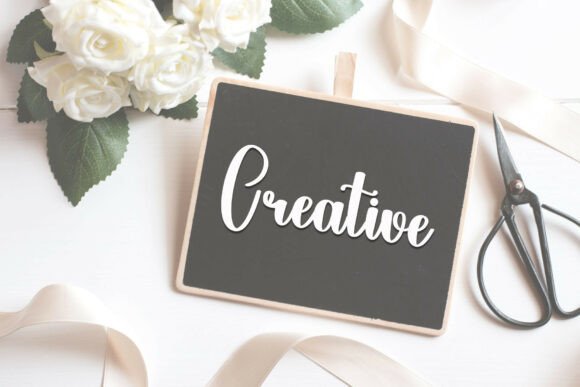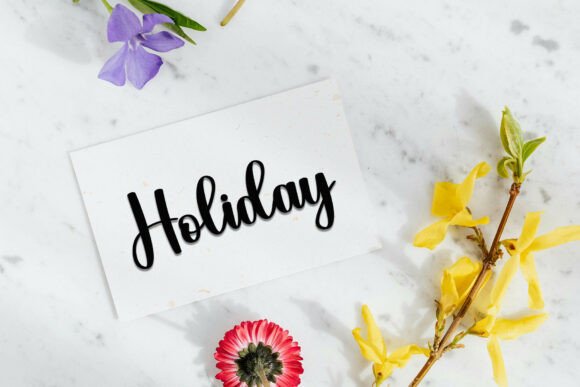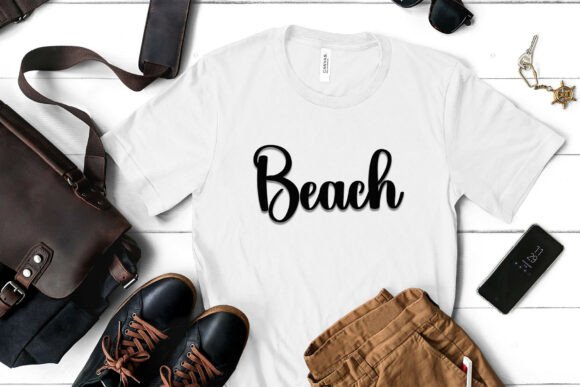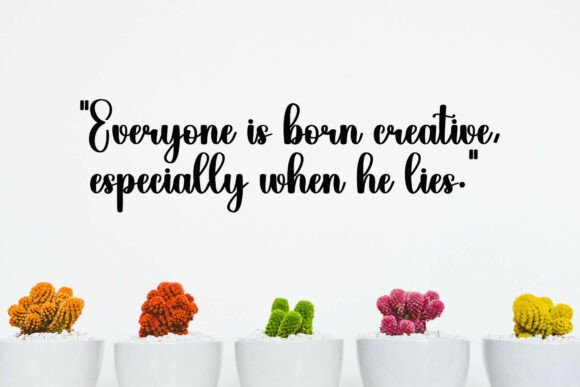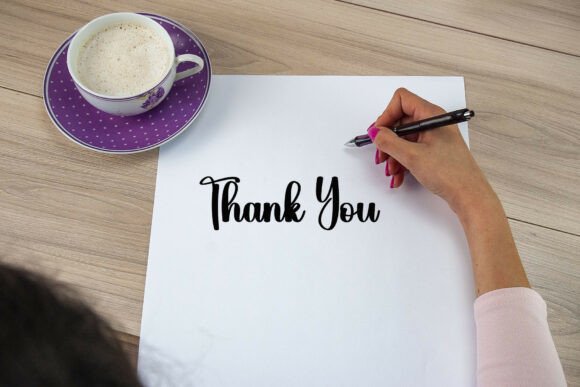
Cowgirls Font: A Sweet and Cursive Handwritten Font for Your Design Needs
Are you a designer or crafter looking for a font that can add a touch of elegance and whimsy to your projects? Look no further than Cowgirls Font, a sweet and cursive handwritten font that is perfect for a variety of design ideas. In this article, we’ll explore the features and benefits of Cowgirls Font, and show you how it can elevate your designs to the next level.
What is Cowgirls Font?
Cowgirls Font is a beautiful, handwritten font that is characterized by its gentle and cursive script. The font is designed to be highly legible and versatile, making it perfect for use in a wide range of design projects. Whether you’re creating a logo, branding materials, wedding invitations, greeting cards, or marketing promotions, Cowgirls Font is sure to add a touch of joy and romance to your designs.
Features of Cowgirls Font
Cowgirls Font has a number of features that make it an ideal choice for designers and crafters. Some of the key features of the font include:
- Sweet and Cursive Script: Cowgirls Font features a beautiful, cursive script that is both elegant and whimsical.
- Highly Legible: The font is designed to be highly legible, making it perfect for use in body text and other applications where readability is key.
- Versatile: Cowgirls Font can be used in a wide range of design projects, from logos and branding materials to wedding invitations and marketing promotions.
- Fancy yet Casual: The font has a fancy and elegant feel, but still manages to be casual and approachable.
Benefits of Using Cowgirls Font
There are many benefits to using Cowgirls Font in your design projects. Some of the key benefits include:
- Adds a Touch of Elegance: Cowgirls Font adds a touch of elegance and sophistication to any design project.
- Creates a Romantic Feel: The font’s cursive script and gentle feel create a romantic and whimsical atmosphere in any design.
- Perfect for Branding: Cowgirls Font is perfect for use in branding materials, such as logos and business cards.
- Great for Wedding and Event Design: The font is ideal for use in wedding invitations, event flyers, and other design materials.
Design Ideas Using Cowgirls Font
Cowgirls Font can be used in a wide range of design projects. Here are a few ideas to get you started:
- Branding and Logo Design: Use Cowgirls Font to create a beautiful and elegant logo for your business or brand.
- Wedding Invitations: Add a touch of romance and whimsy to your wedding invitations with Cowgirls Font.
- Greeting Cards: Use the font to create beautiful and elegant greeting cards for special occasions.
- Fashion and Lookbook Design: Cowgirls Font is perfect for use in fashion design and lookbooks.
- Marketing Promotions: Use the font to create eye-catching marketing promotions and advertisements.
In conclusion, Cowgirls Font is a beautiful and versatile handwritten font that is perfect for a wide range of design projects. Its sweet and cursive script, highly legible design, and fancy yet casual feel make it an ideal choice for designers and crafters. Whether you’re creating branding materials, wedding invitations, greeting cards, or marketing promotions, Cowgirls Font is sure to add a touch of elegance and whimsy to your designs.